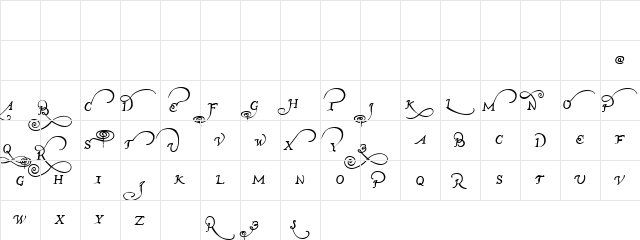
John Speed Demo Regular
Design Context for John Speed Demo Typeface
John Speed Demo is a composed and adaptable typeface that performs quietly and consistently across a wide range of design contexts.